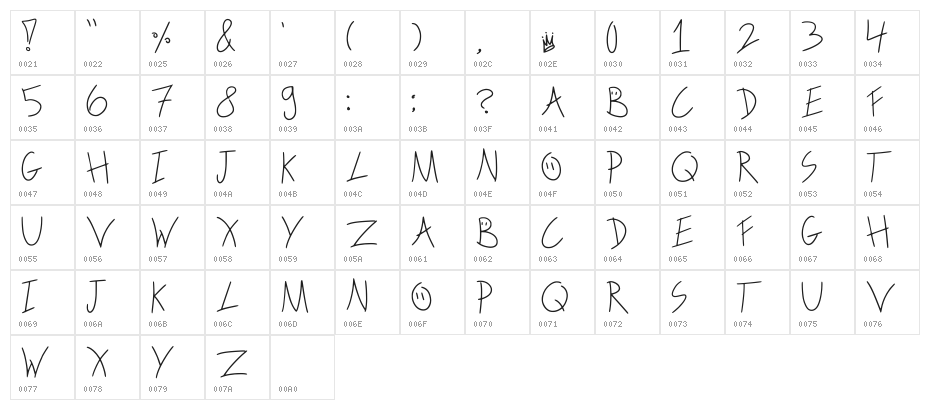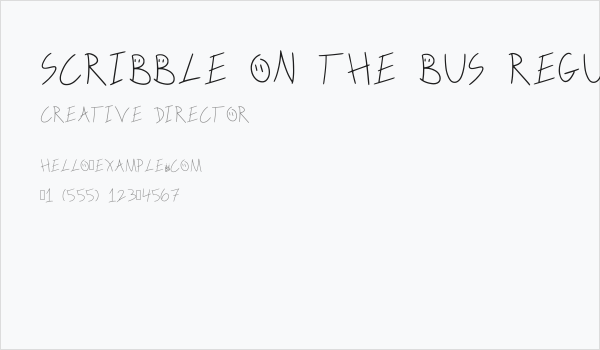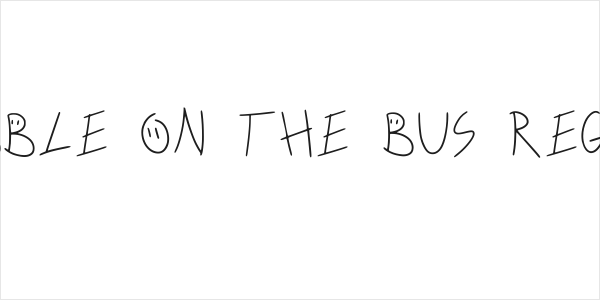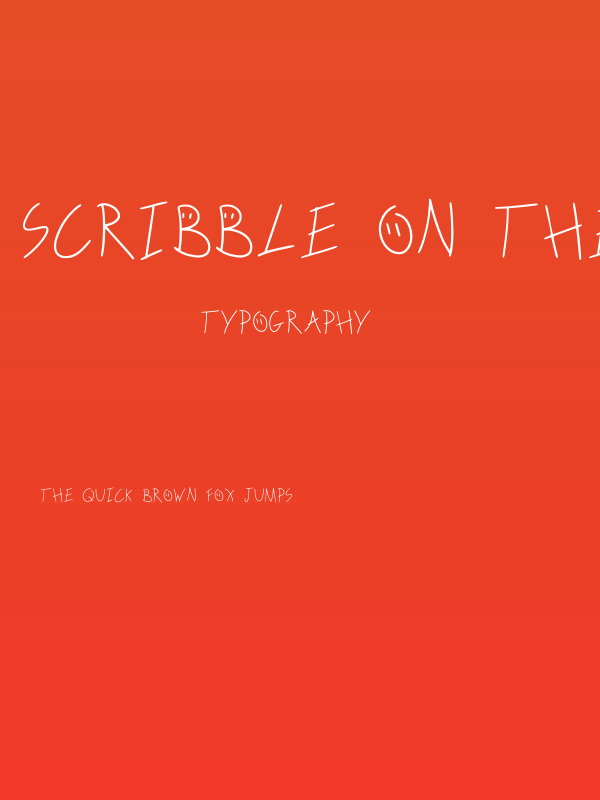
Scribble On The Bus Regular Font
Scribble On The Bus Regular Description
This playful and whimsical font features a hand-drawn style that mimics the look of casual, spontaneous scribbles. The letters are uneven and slightly tilted, adding a sense of movement and energy. Each character is unique, with quirky elements like smiley faces incorporated into some letters, enhancing its playful nature. The font includes both uppercase and lowercase letters, numbers, and a variety of special characters. Its informal and fun appearance makes it ideal for creative projects that require a personal touch.
Overall StylePlayful
Use CaseLogos, Headlines, Creative projects
Proposed ProjectsIdeal for children's book covers, playful invitations, casual branding, and creative social media graphics.